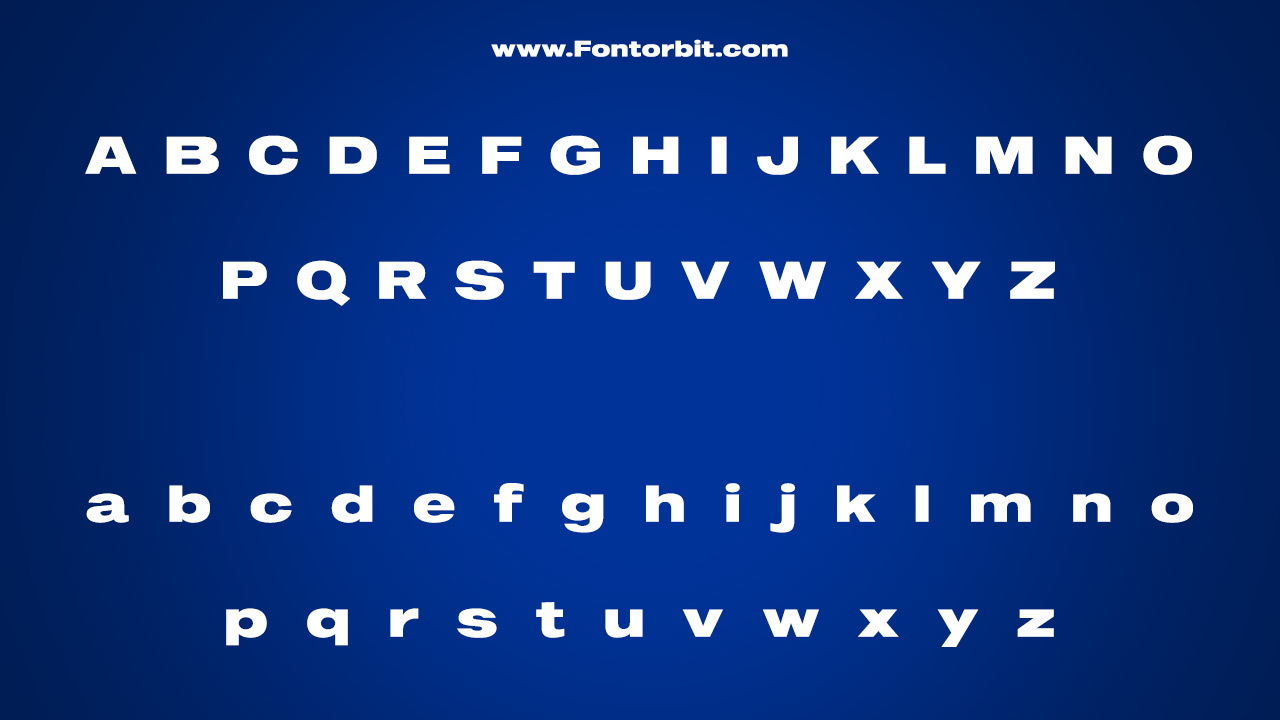
The Suzuki logo font, “Neue Helvetica Pro 93 Extended Black,” plays a crucial role in the brand’s identity. Known for its geometric and clean design, it reflects the rich Japanese culture and history.
Max Miedinger and Edouard Hoffmann designed this typeface, integral to Suzuki’s visual branding since its inception.
a. Neue Helvetica Pro 93 Extended Black
b. O PTIImprov New Wide Nine (Regular)
The Suzuki Font is perfect for automotive branding, promotional materials, and any design requiring a strong, clear typeface. Its geometric design ensures a recognizable and impactful brand presence.
The Suzuki Font, based on “Neue Helvetica Pro 93 Extended Black,” embodies the brand’s sophisticated and timeless image. The O PTIImprov New Wide Nine (Regular) is free for personal use and ideal for automotive branding, promotional content, and designs needing a sleek, geometric typeface. Its clarity and strong visual impact make it a staple in Suzuki’s branding efforts.
1.What Is The Suzuki Font?
The Suzuki Font is Neue Helvetica Pro 93 Extended Black, known for its clean, geometric sans-serif design.
2.Who Designed The Suzuki Font?
“Neue Helvetica Pro 93 Extended Black” was designed by Max Miedinger and Edouard Hoffmann.
3.What Are The Key Features Of The Suzuki Font?
It features a bold, geometric sans-serif style with a single weight, providing clarity and a strong visual presence.
4.How To Use Suzuki Font In Branding?
Apply it for vehicle logos, advertising, and promotional materials to maintain a refined and impactful brand image.
5.What Are The Alternatives To The Suzuki Font?
Similar fonts include Helvetica Neue, Arial, Univers, Futura, and Akzidenz-Grotesk.